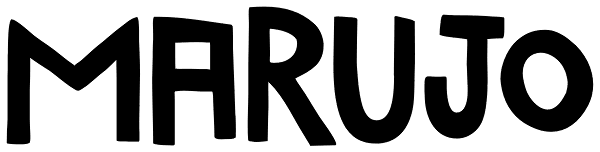
Marujo
Marujo is a highly decorative typeface inspired by painted pieces of Arthur Bispo do Rosário, a striking Brazilian artist who lived for 50 years in a psychiatric institution. Besides its spirited Regular and Light cuts, Marujo family brings nifty...
Marujo Dots
Marujo Fino
Marujo Dotface
Marujo Pictures
Marujo Shadow 1
Marujo
Marujo Shadow 2
Marujo Striped